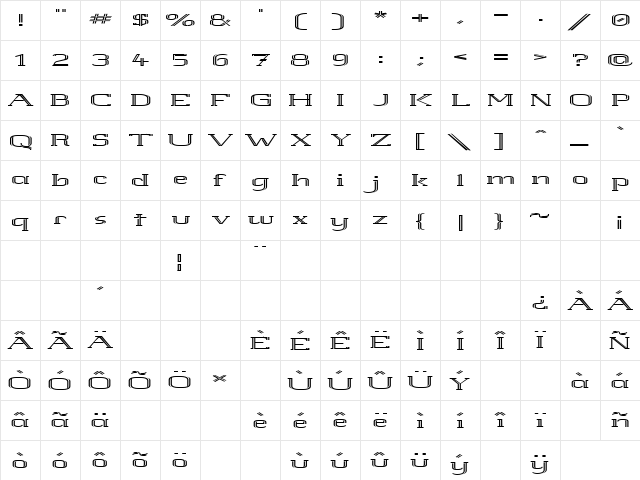
White Line Rolled Regular
Design Context for White Line Rolled Typeface
White Line Rolled offers clean, dependable letterforms without strong stylistic allegiance, making it a practical choice for designers who need flexibility.